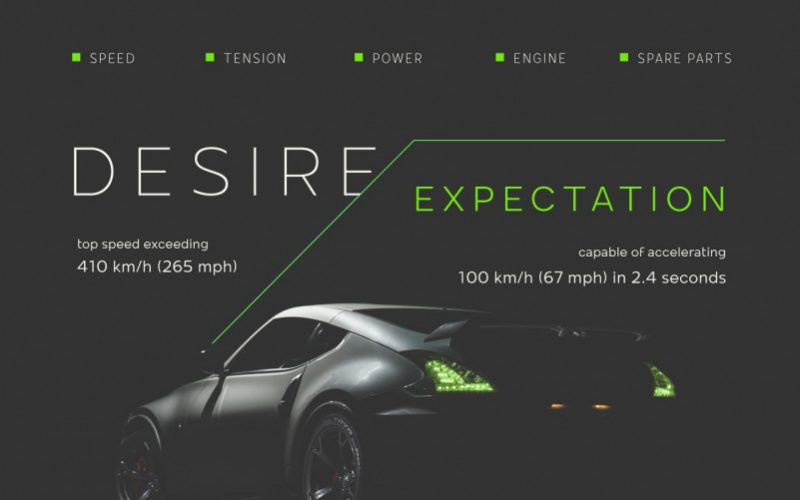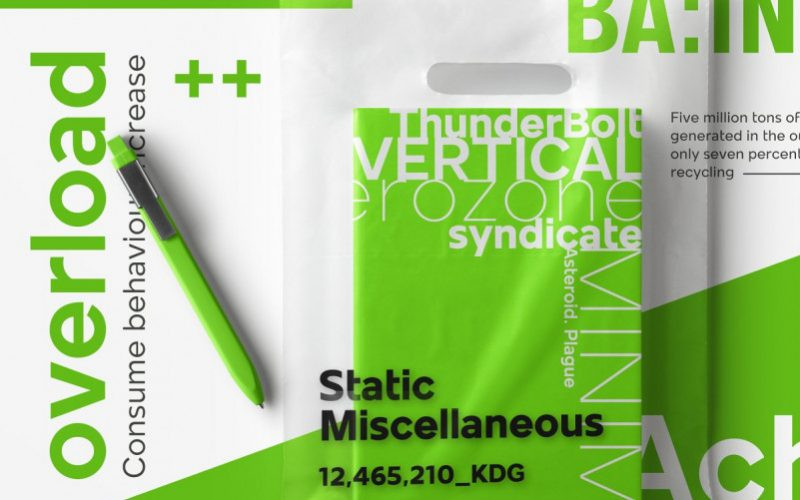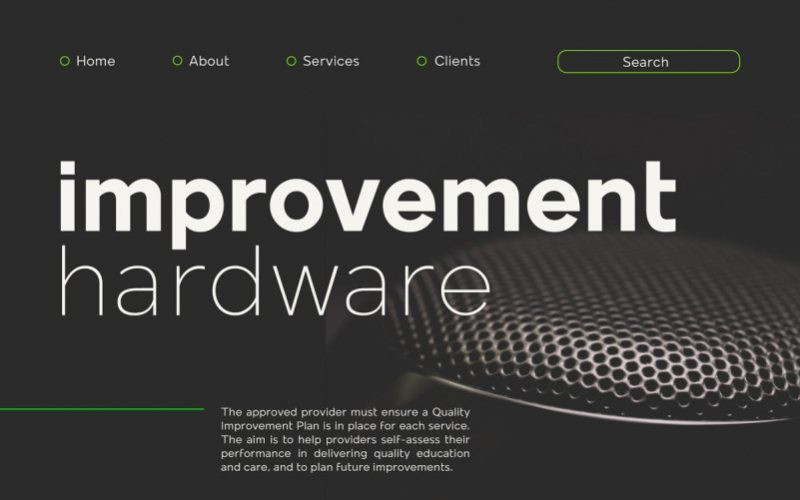
Mollen Font Family
Hi designer! This is a modern sans serif with 48 fonts. A versatile, modern, condensed font family, perfect for creating powerful, beautiful text. Use this font for your new project! Introducing Mollen Font Family. It’s sans serif font family that designed to be functional. Each glyphs are shaped by geometrical form with specific visual structure: Simple and clean form with low contrast stroke, rounded ‘o’ in the normal width, mix diagonal and straight cuts on terminals and finials. Low capitals, with flat top and low descenders. With this personality, Mollen meant be fit for modern, contemporary and technological nuance.